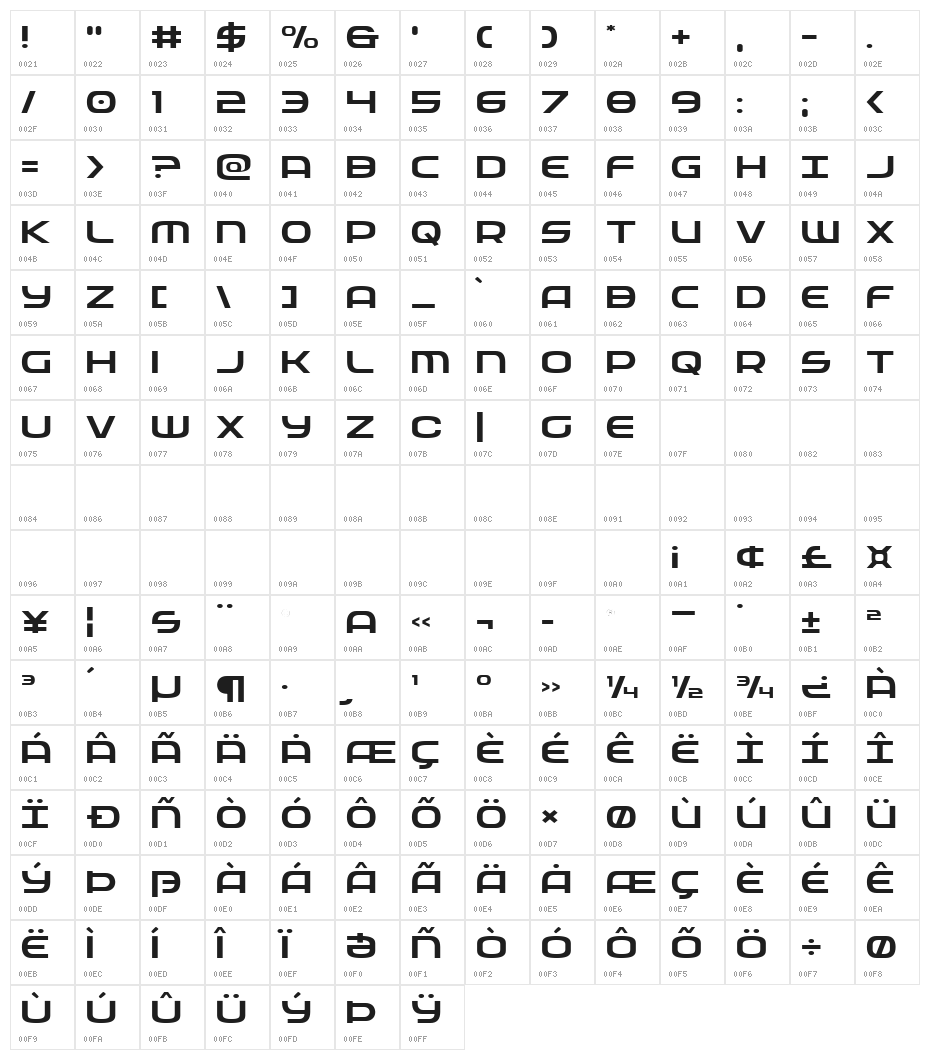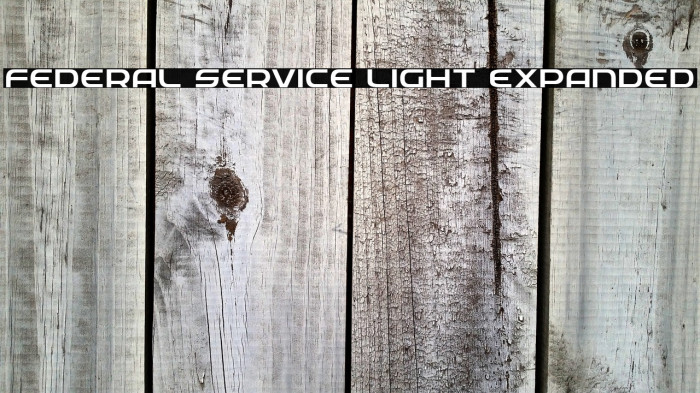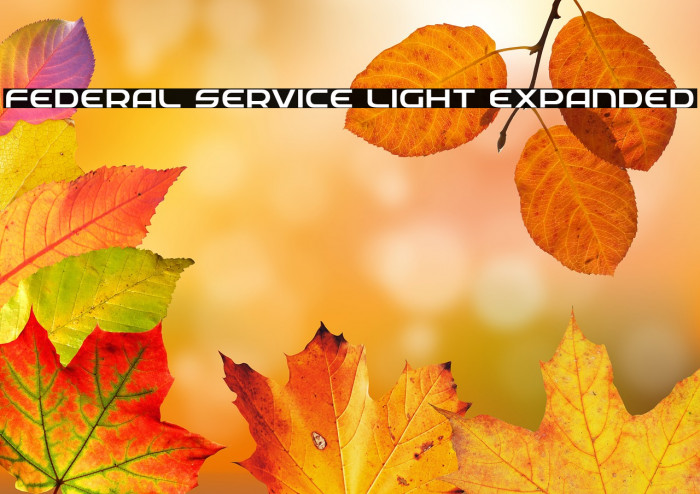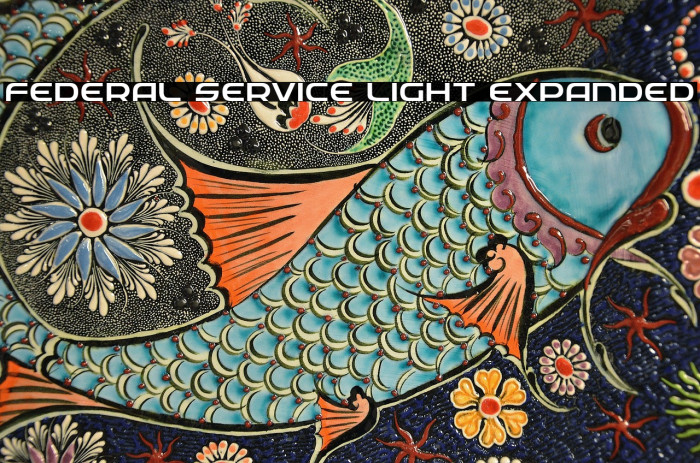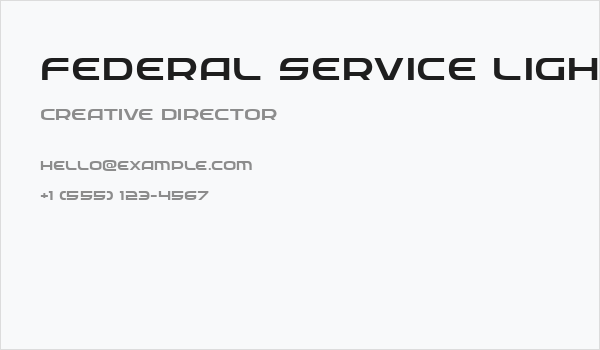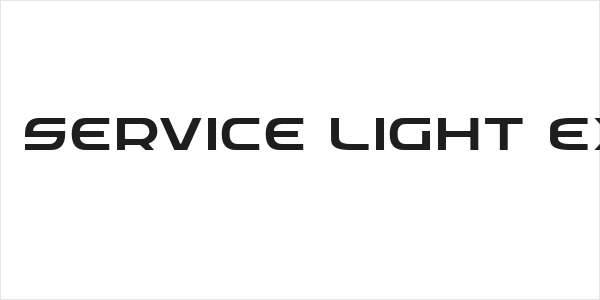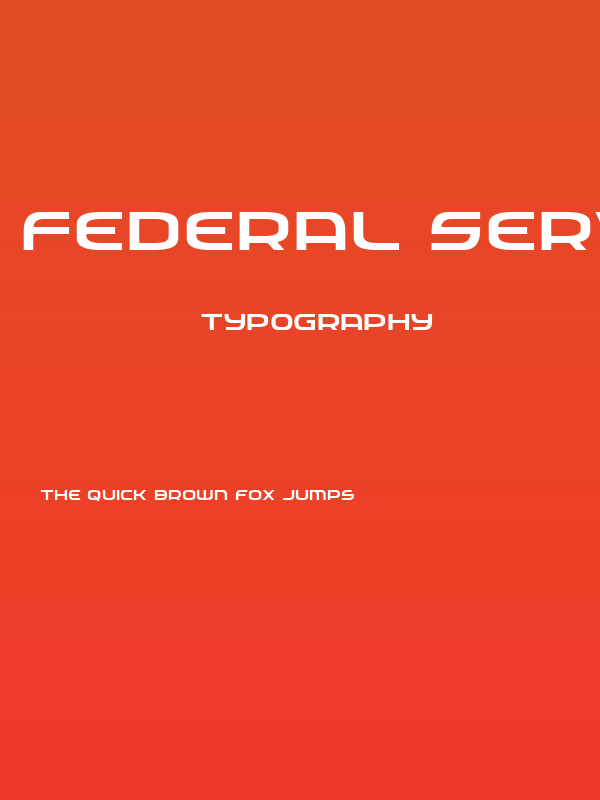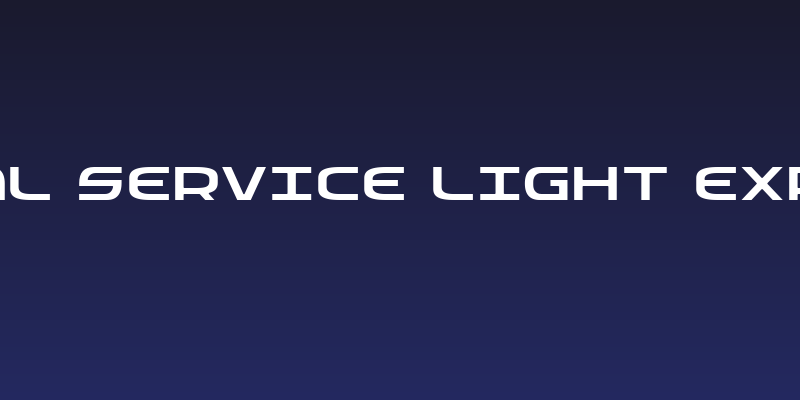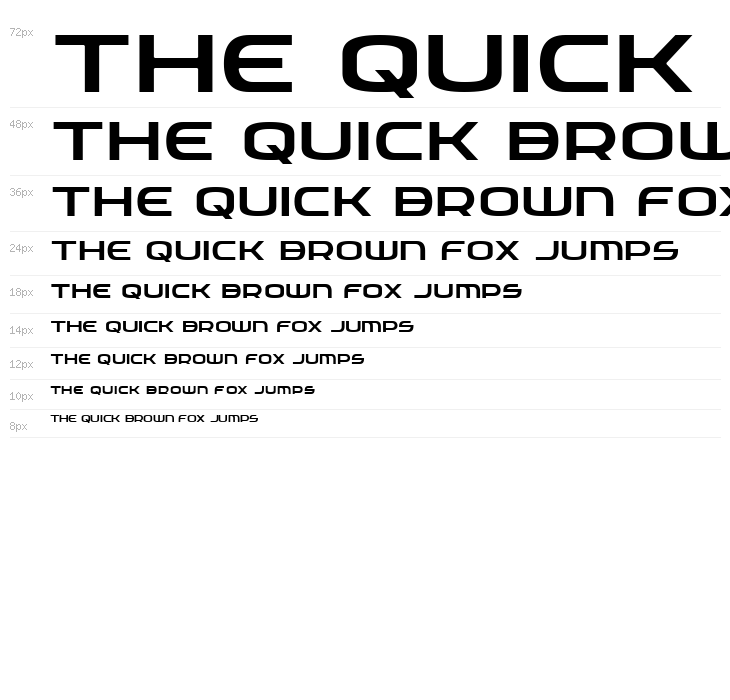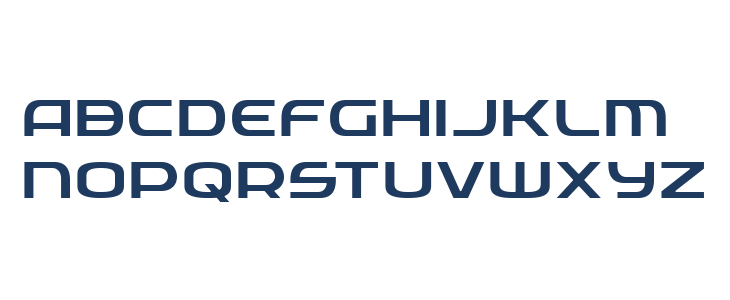
Federal Service Light Expanded Font
Federal Service Light Expanded Description
This font features a modern, geometric design with clean lines and a streamlined appearance. The characters are uniform in width, giving it an expanded feel, while maintaining a light weight that enhances readability. The rounded edges and consistent stroke thickness contribute to its contemporary style, making it suitable for a variety of digital and print applications. The font's structure is balanced and symmetrical, with a slight futuristic touch, ideal for projects that require a sleek and professional look.
| Use Case | Headlines, Logos, Digital Interfaces |
| Proposed Projects | Ideal for tech branding, digital interfaces, signage, and modern advertising campaigns. |